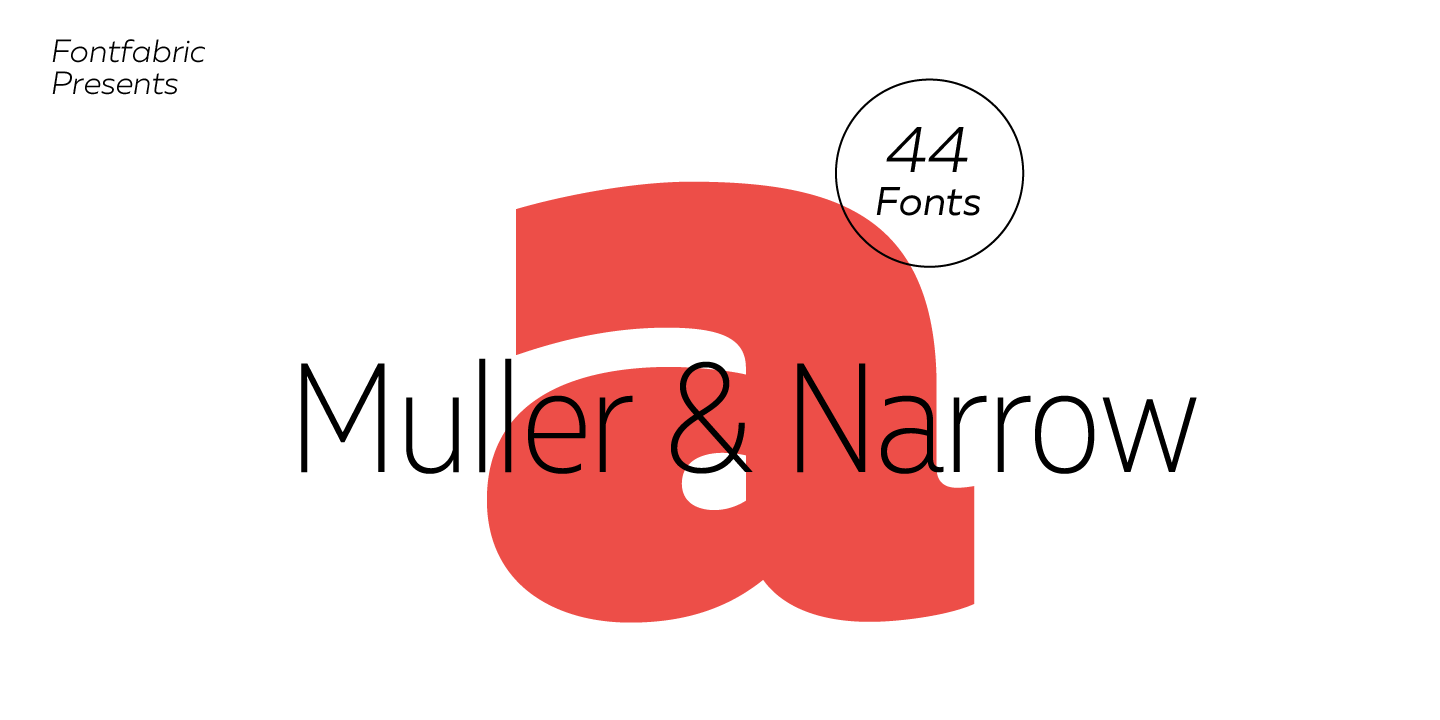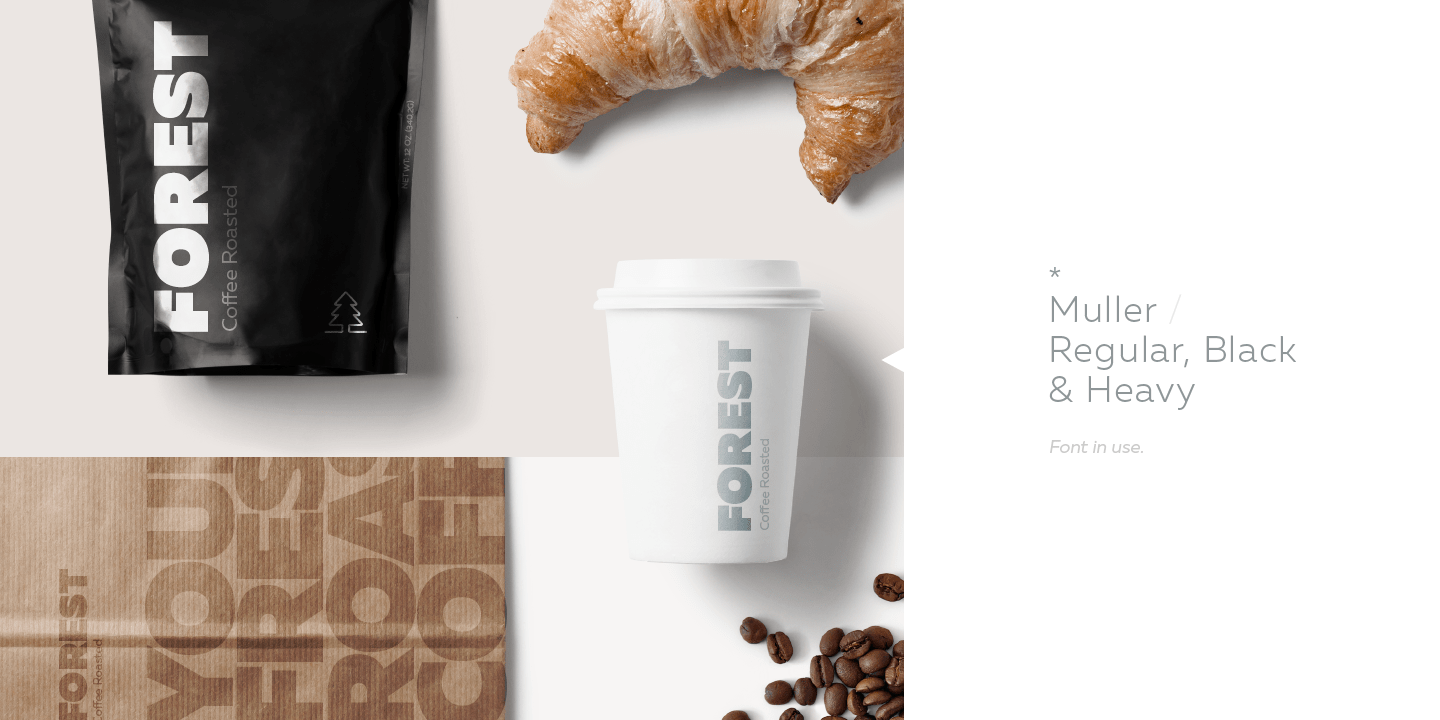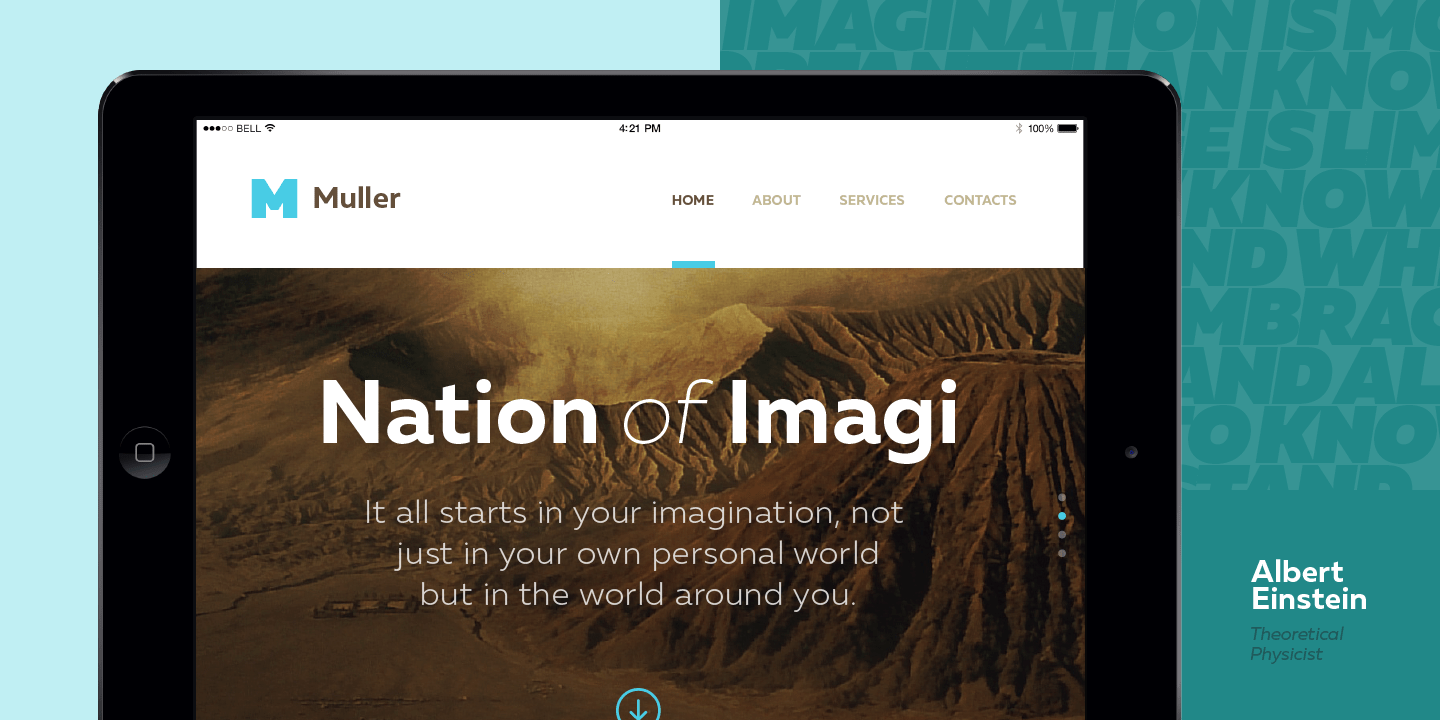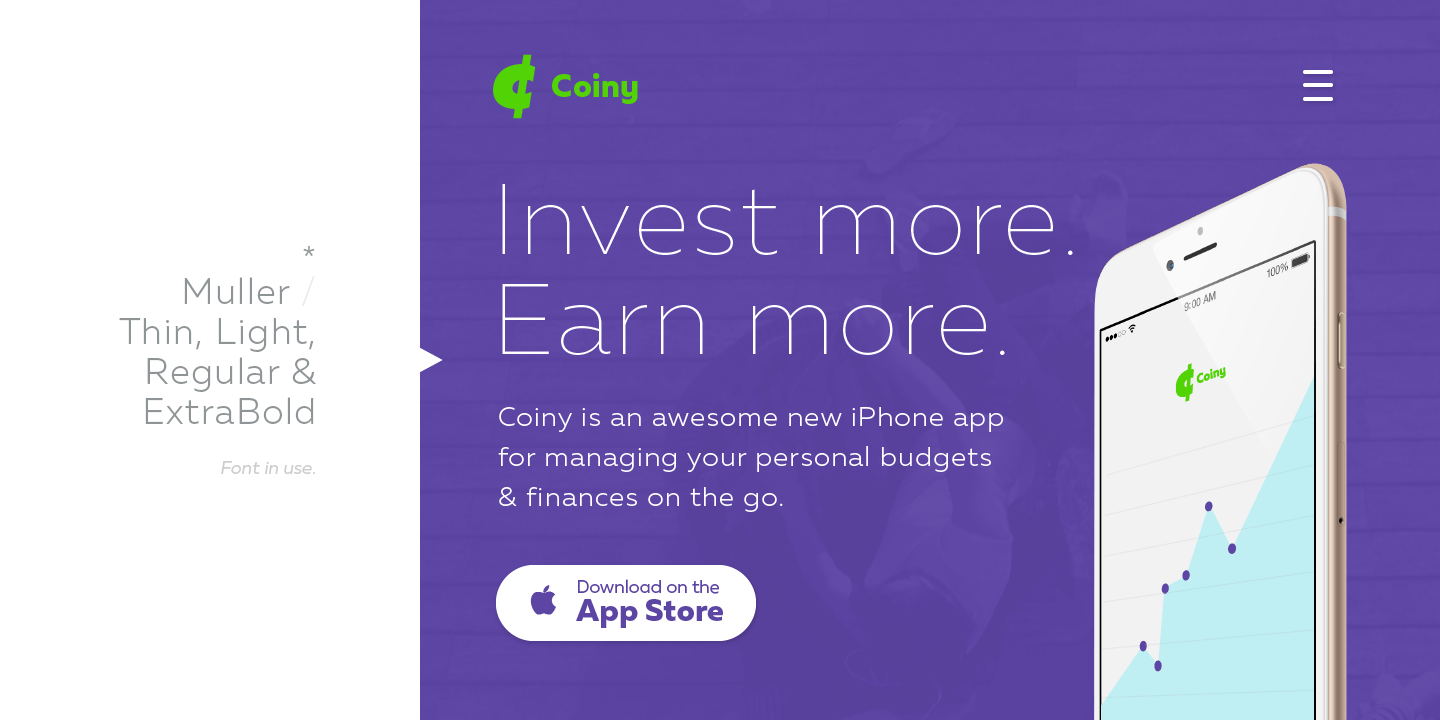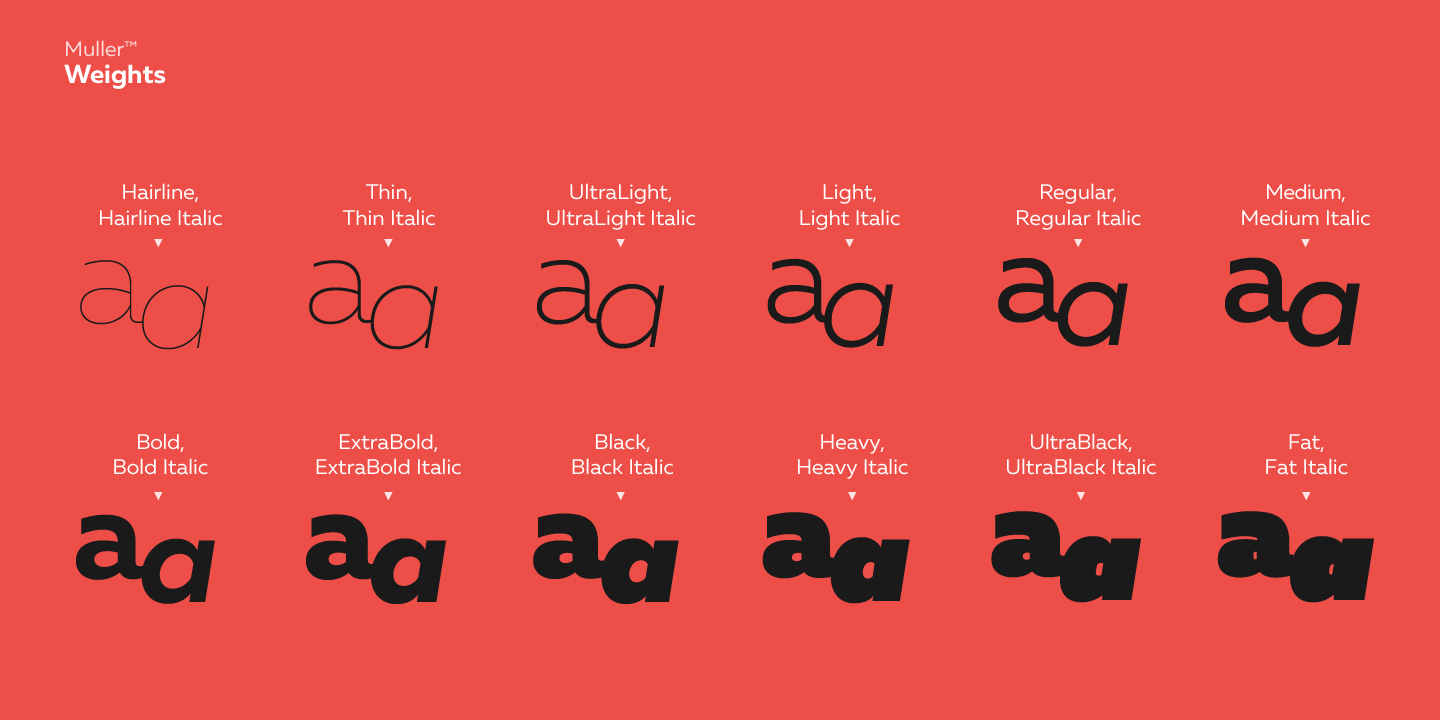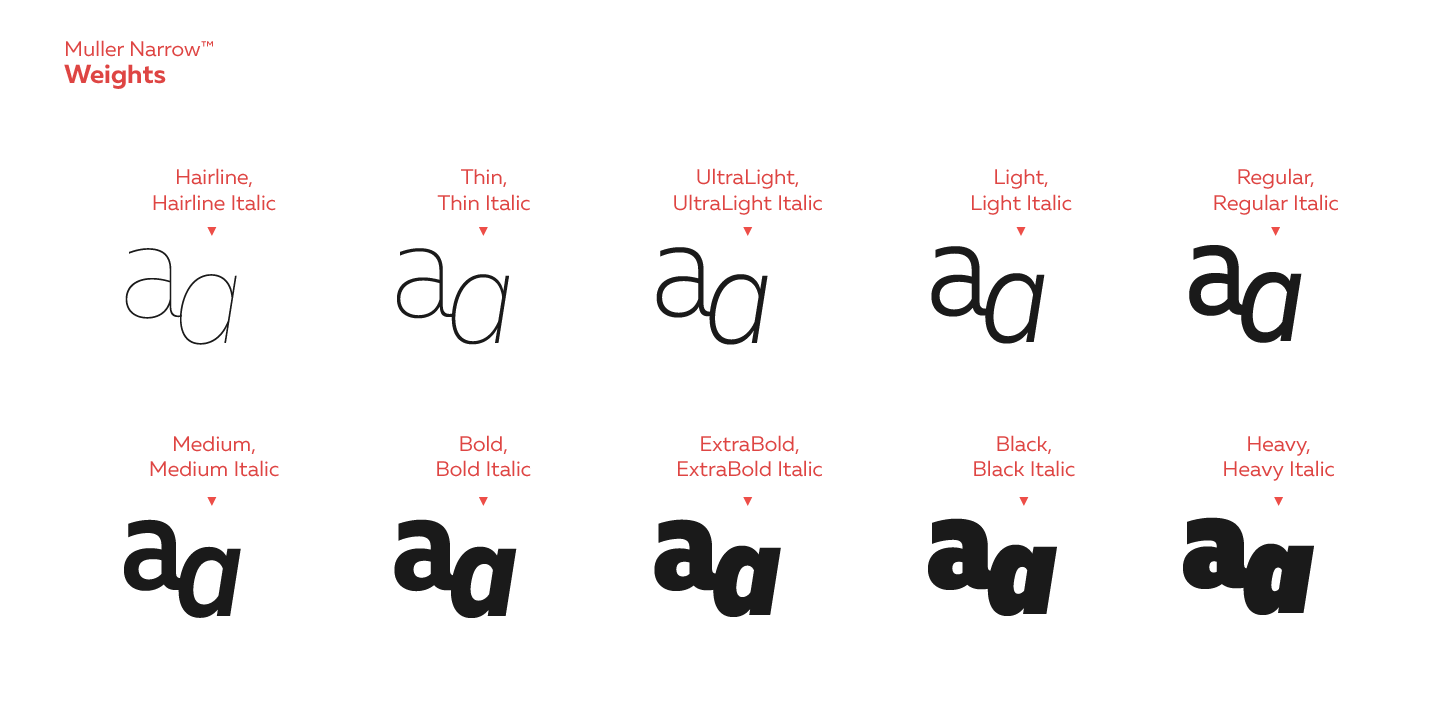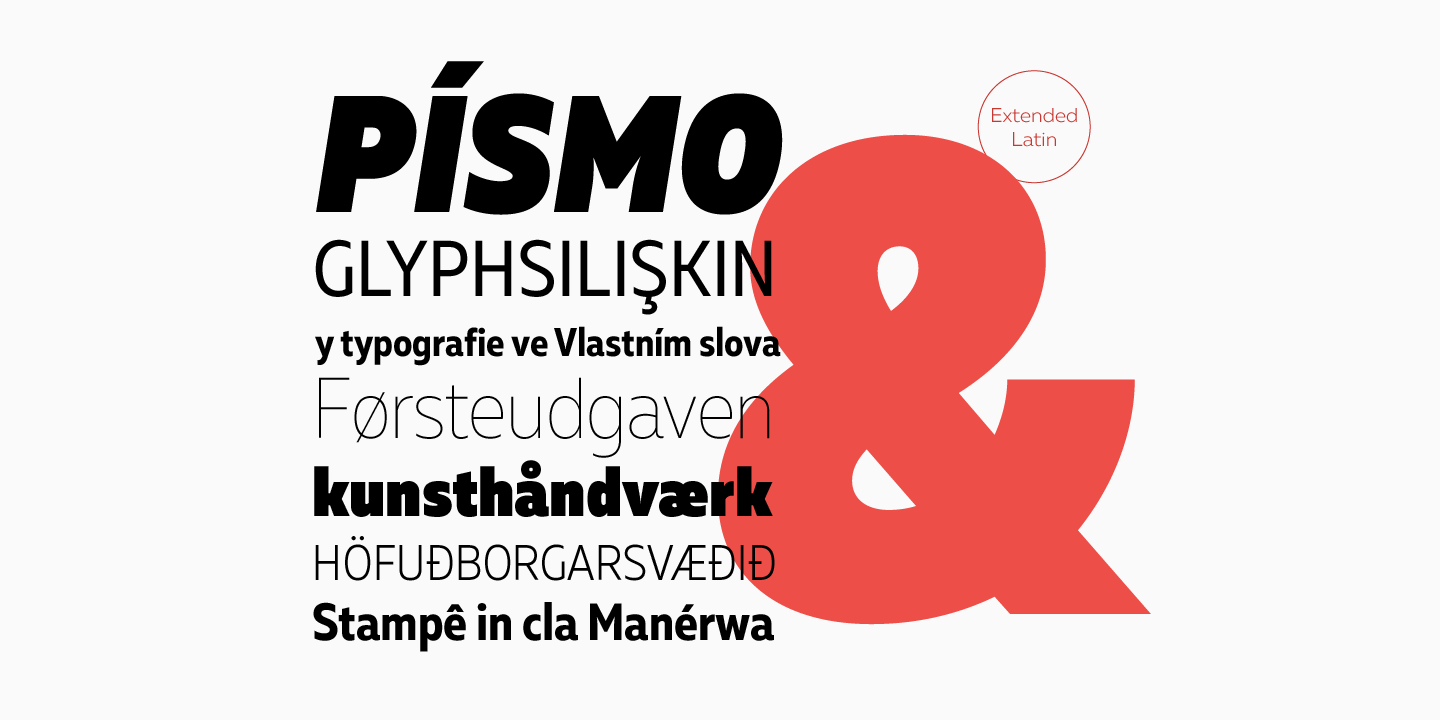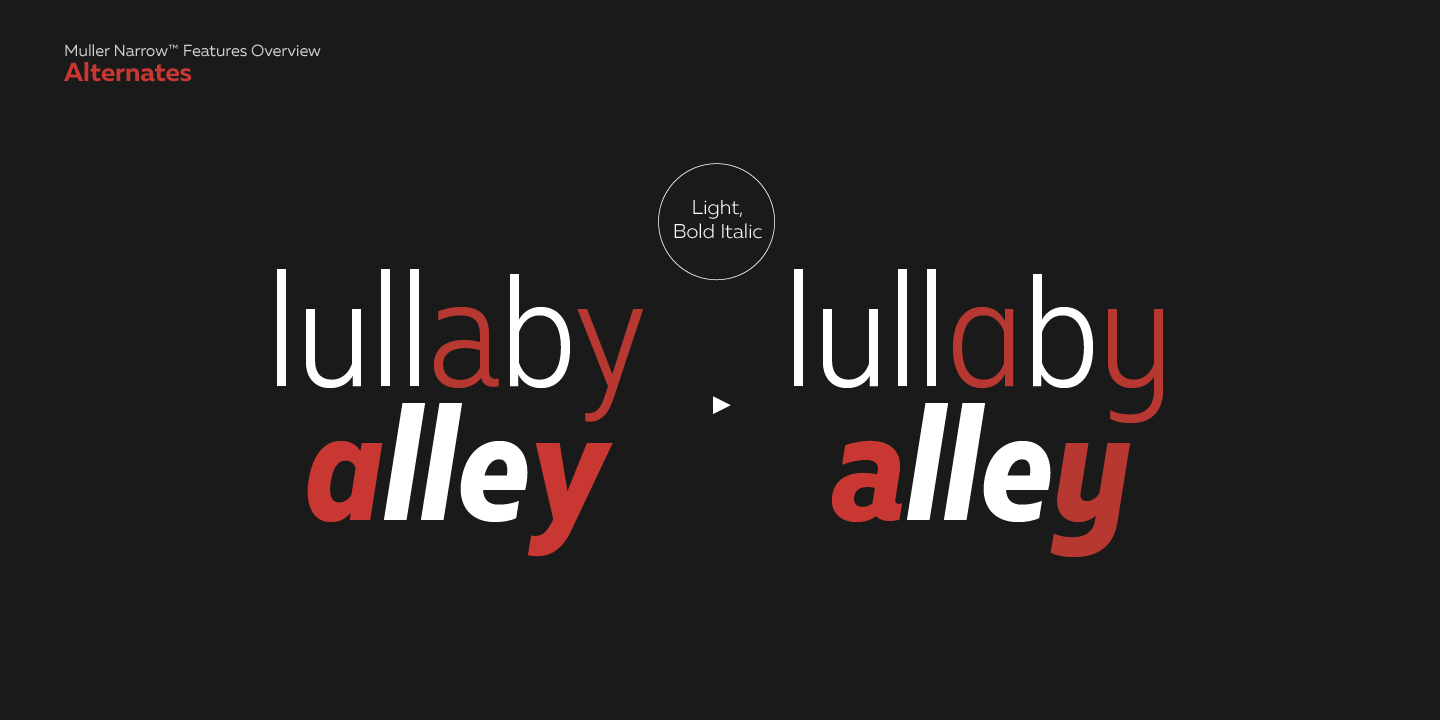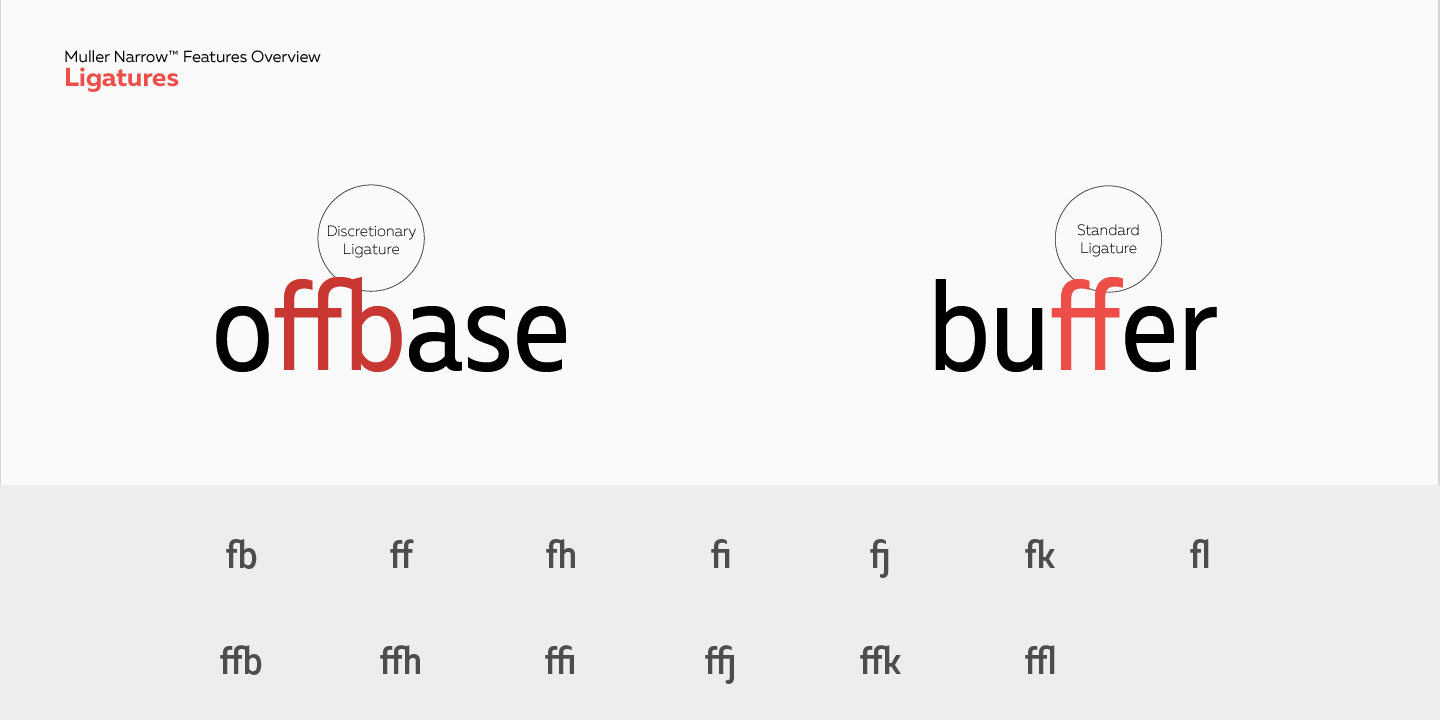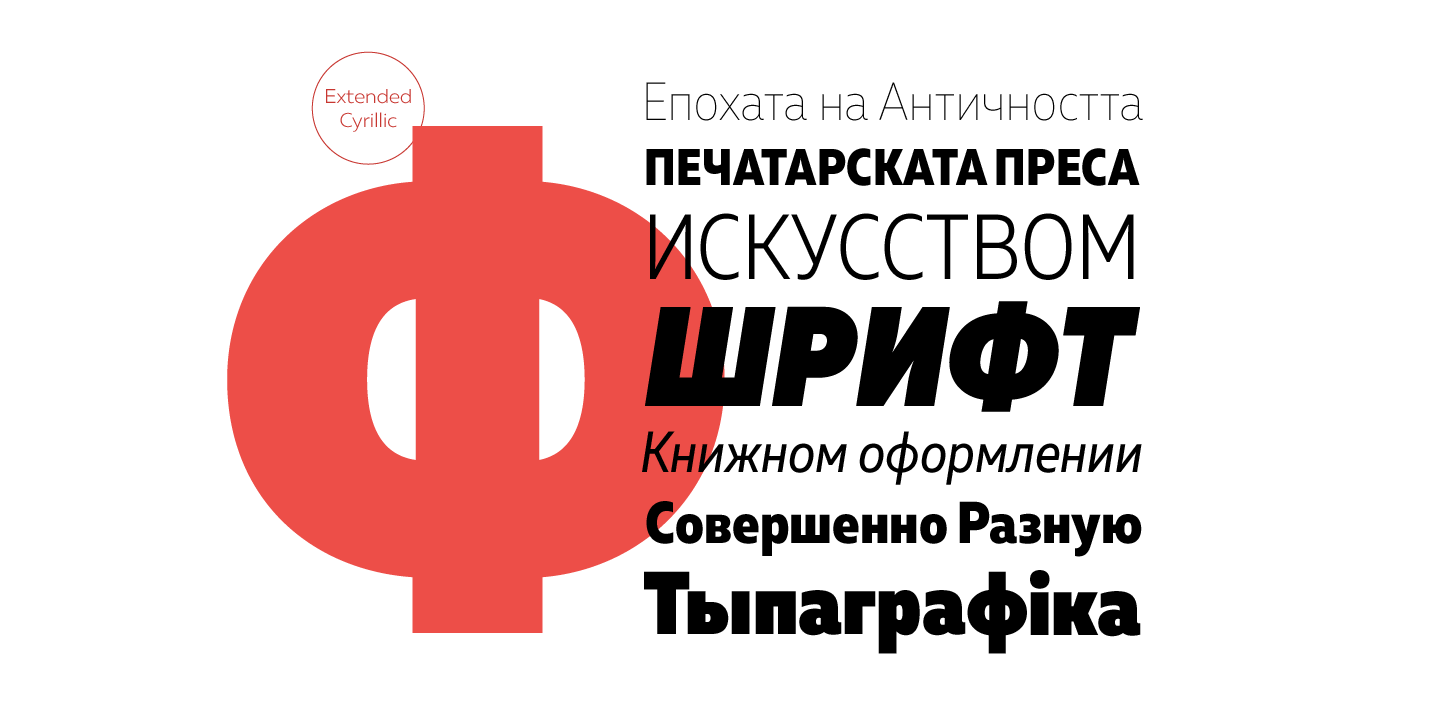
Muller
Font Family by Fontfabric
The very first sketches of Muller were made about four years ago.
In the process they changed to the point where they had nothing in common with the original idea. As it is with most work we do, when we seek perfection, changes are inevitable.
It was specifically designed with a wider structure for better appearance in small sizes and the extra attention to the detail was needed for the big sizes. We managed to find the right balance for the perfect universal font family.
The family consists of 20 weights, ranging from Thin to Heavy with matching Italics. This font family is suited for everything, ranging from advertising, packaging, editorial and branding, to web and screen projects.
Muller comes with a complete range of figure options, including proportional and old style figures, each in its tabular version. It also includes advanced typographic features such as ligatures, fractions, alternate characters, case-sensitive forms, superscripts and subscripts.